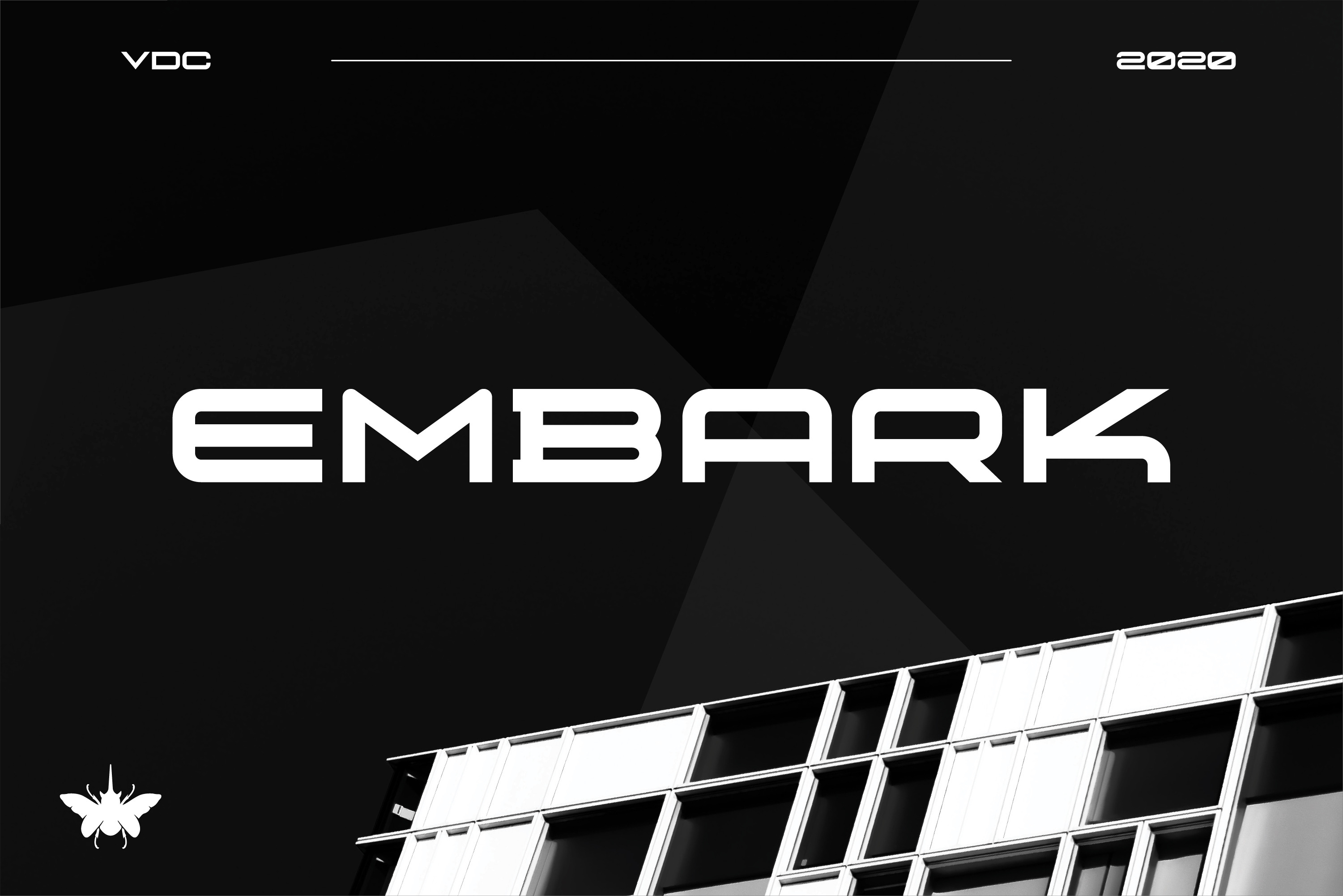
Embark - Sans Serif Font
Embark is a stealthy yet bold sans-serif that sets out to complete the mission, no matter what your mission may be.
Designed by Nick Stewart of Vanguard Design Co